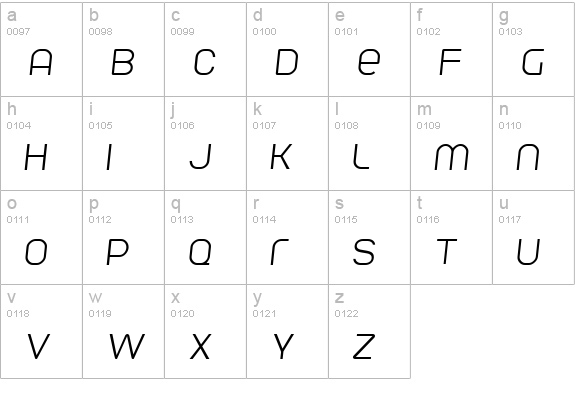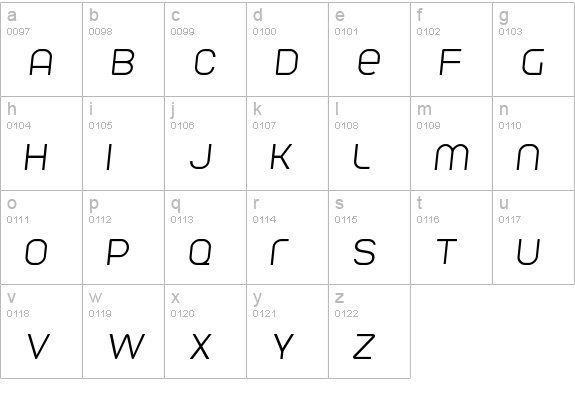
Parvoflavin Light Skew Font Details
Parvoflavin Light Skew is a refined, elegant variant in the Parvoflavin typeface family \xE2\x80\x94 well suited to elegant body text, refined sub-headings, and luxury branding.
Introducing Parvoflavin Light Skew, a captivating font that effortlessly combines elegance and modernity. With its unique and eye-catching design, this font is perfect for adding a touch of sophistication to any project. Parvoflavin Light Skew is a versatile typeface that can be used for various purposes, including branding, advertising, packaging, and more. Its sleek and slanted letterforms add a dynamic and edgy feel, making it ideal for projects that require a contemporary and trendy look. The beauty of Parvoflavin Light Skew lies not only in its visual appeal but also in its versatility. Whether you're designing a logo, creating a website, or crafting a social media post, this font will effortlessly elevate your design and make it stand out from the crowd. What sets Parvoflavin Light Skew apart is not only its stunning aesthetics but also its accessibility. This font is freely available to download at FontsMarket.com, making it accessible to everyone, regardless of their budget or design expertise. So, why wait? Download Parvoflavin Light Skew today and unleash your creativity. Whether you're a professional designer or someone who simply appreciates beautiful typography, this font is sure to leave a lasting impression. Get ready to transform your projects into works of art with Parvoflavin Light Skew.